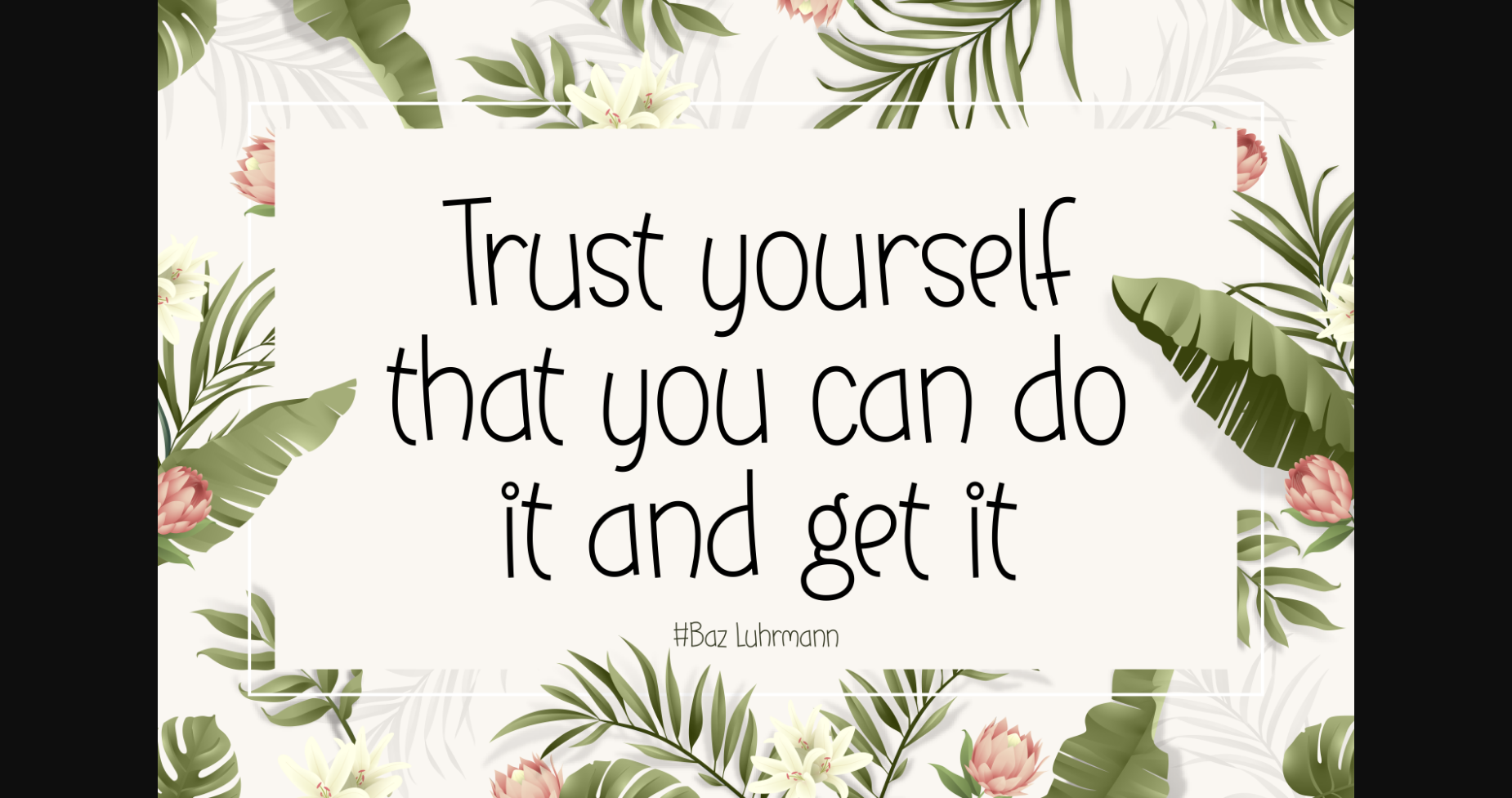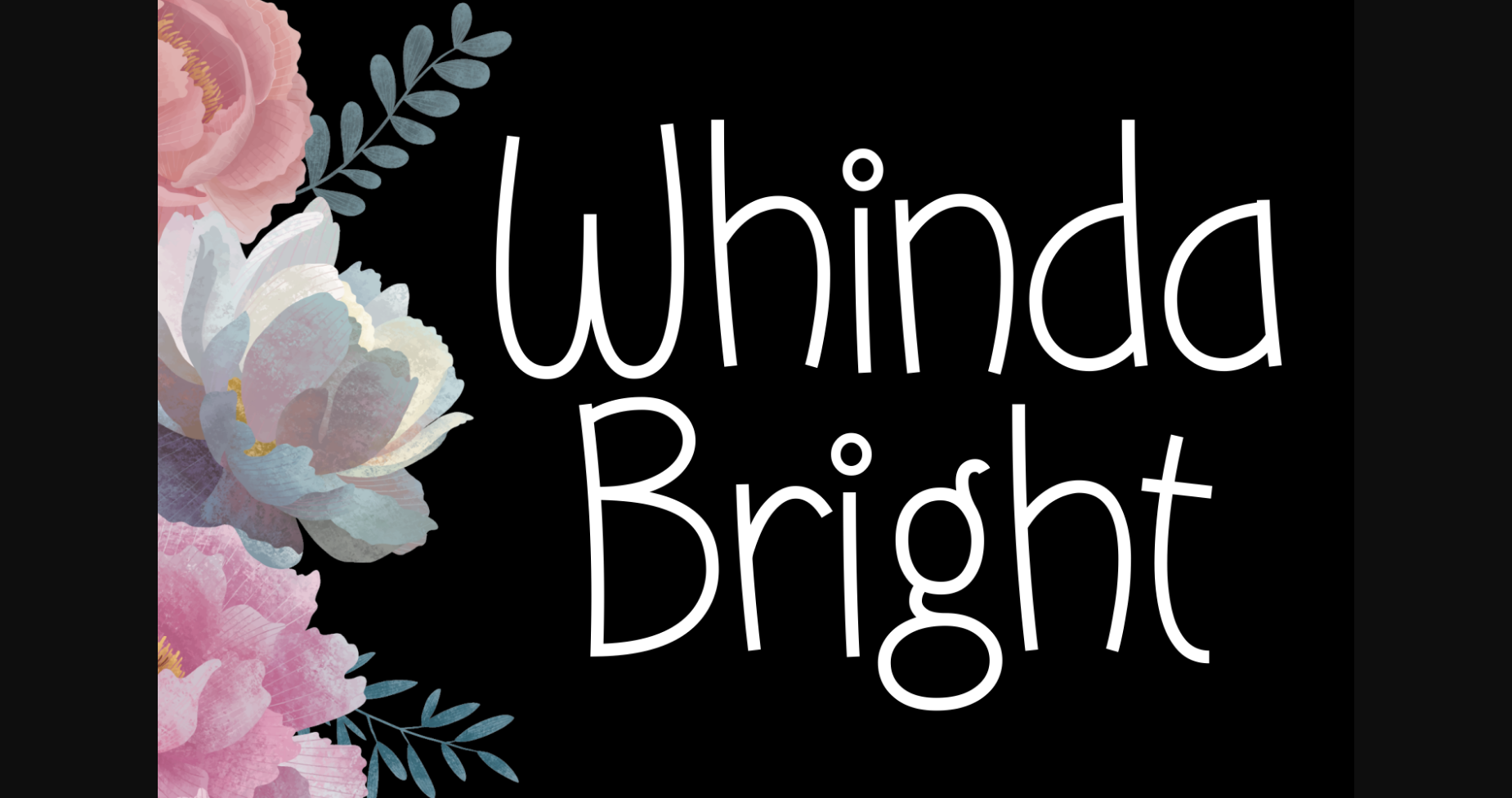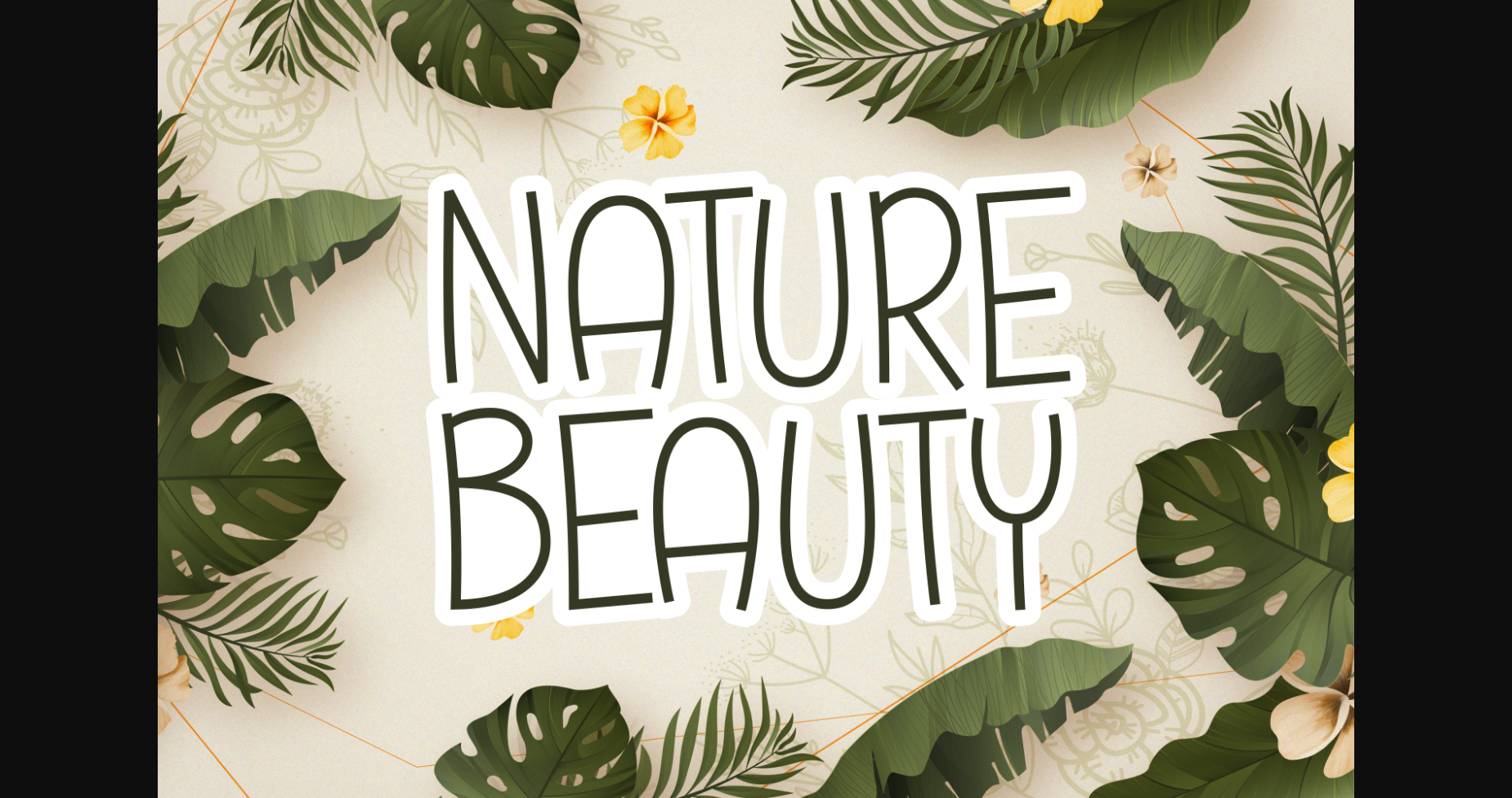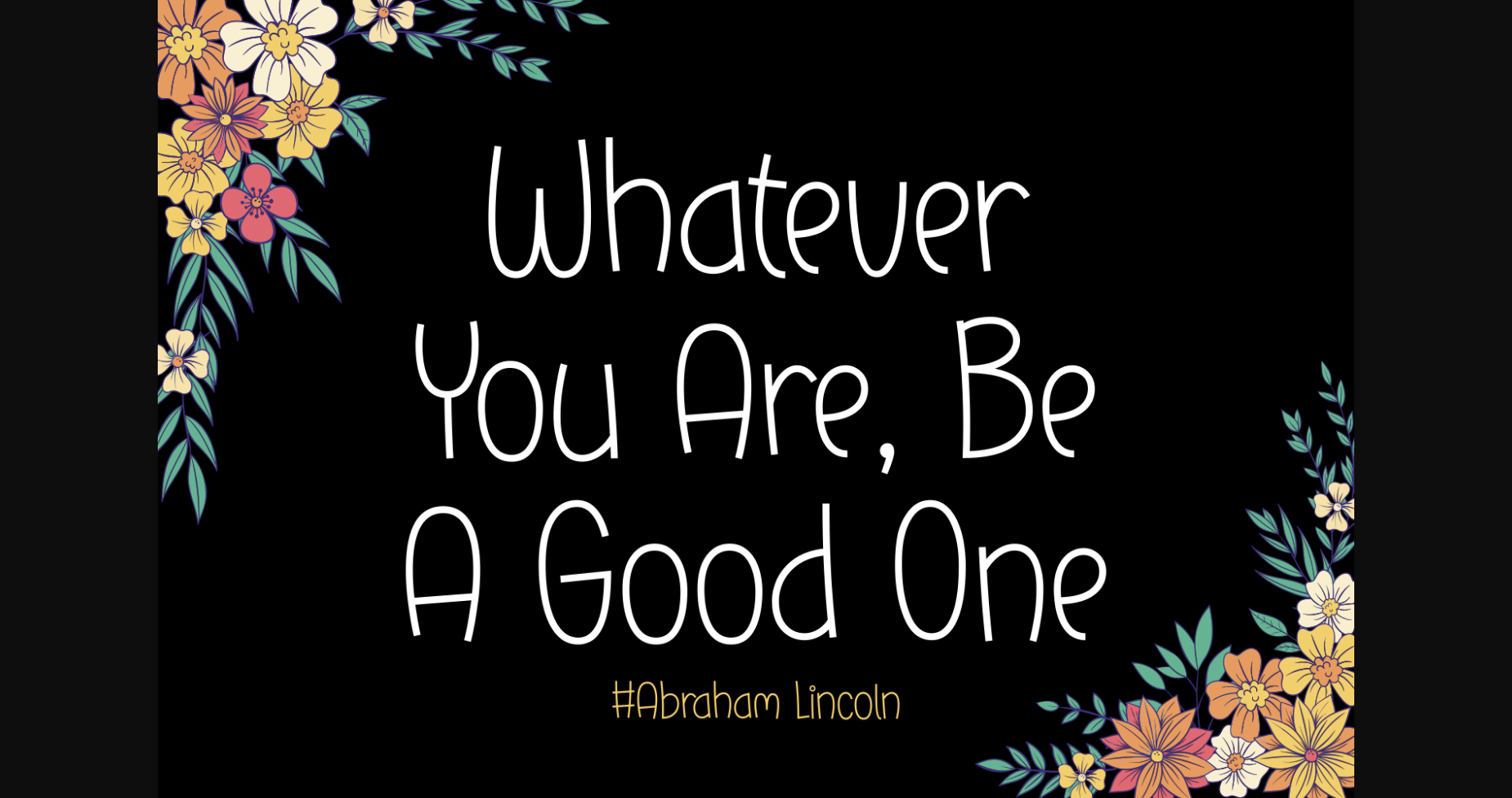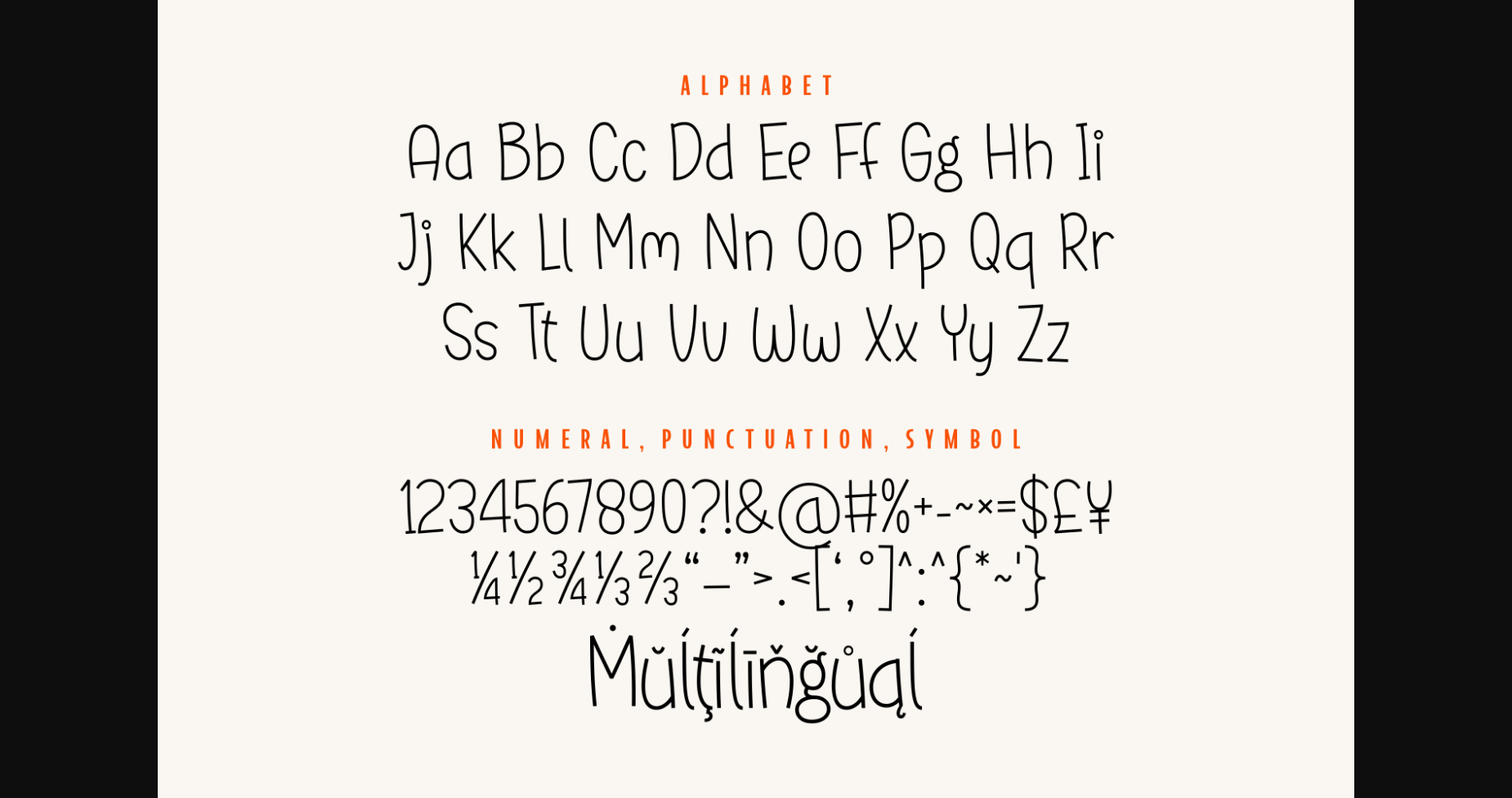
Whinda Bright Font
About Whinda Bright Font
Whinda Bright is a cute and thin sans serif font. This simple yet stylish set of characters will look amazing on all sorts of projects! Use it to create beautiful typography for posters, websites, product packaging, logos, and more.